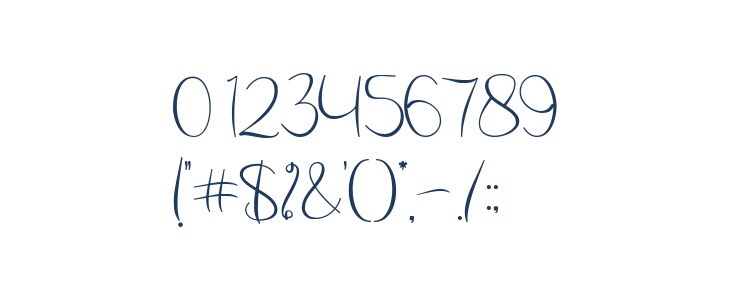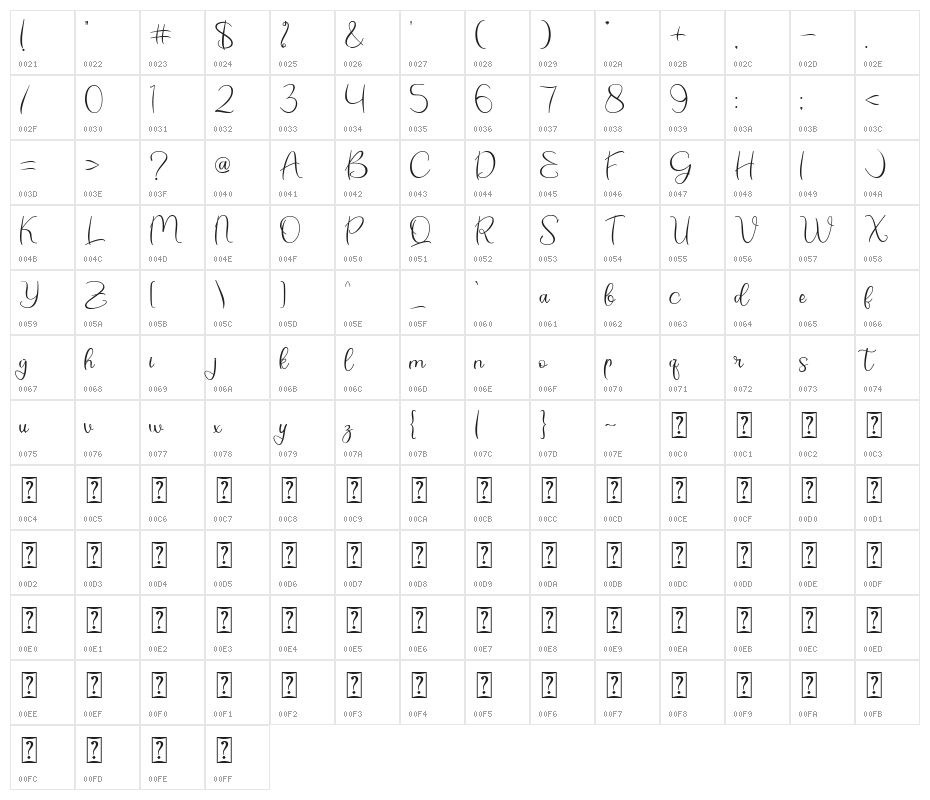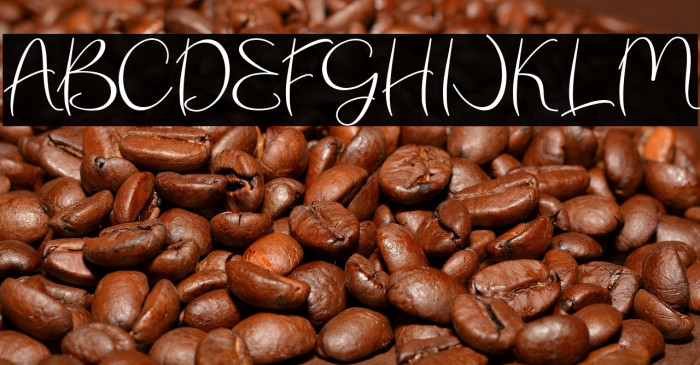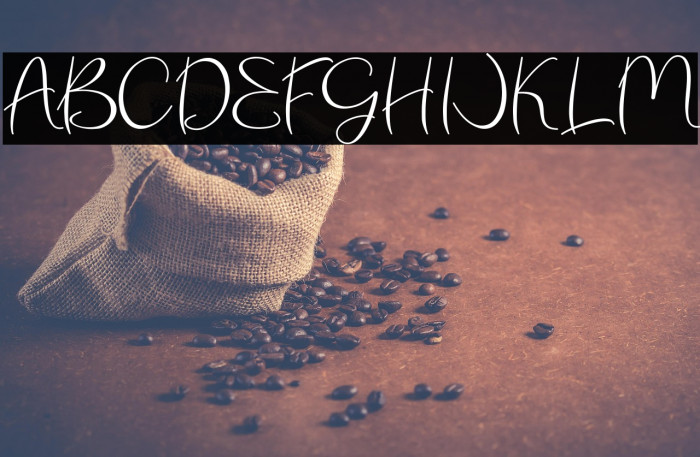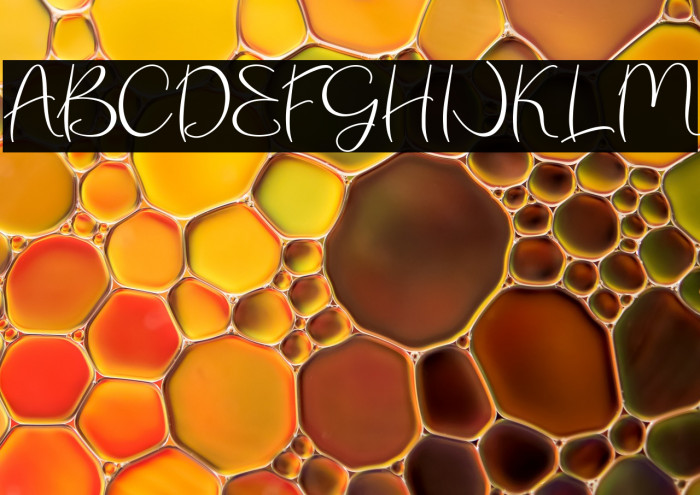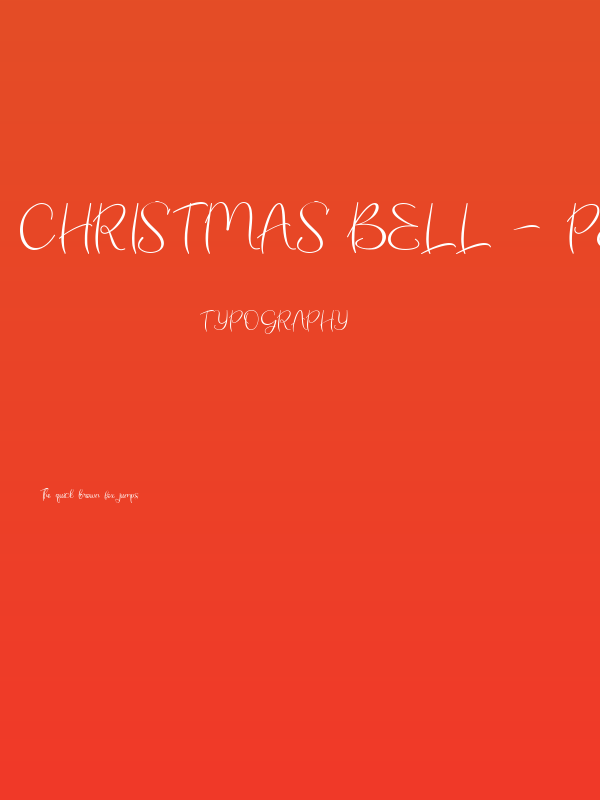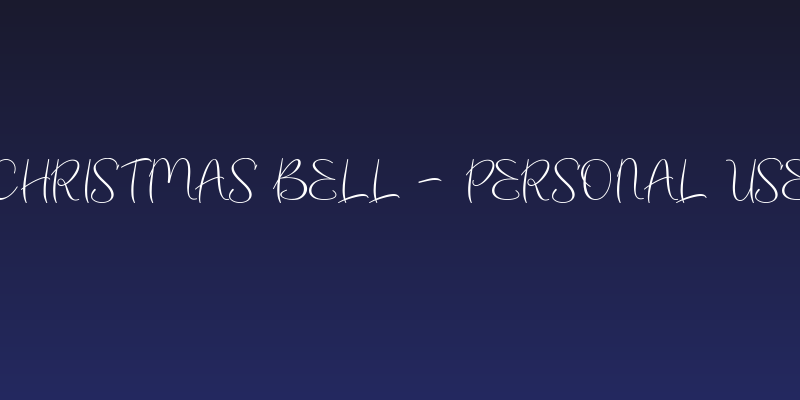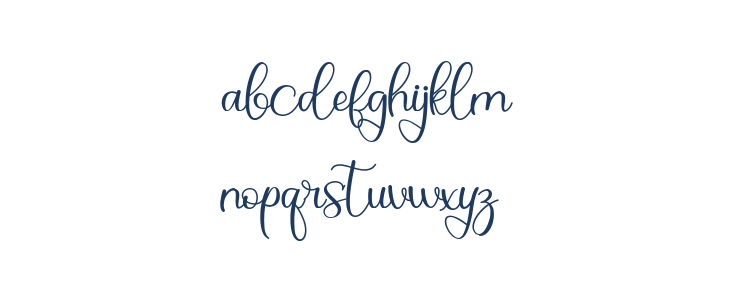
Christmas Bell - Personal Use Font
Christmas Bell - Personal Use Description
This font features an elegant and flowing script style, characterized by its smooth, cursive lines and graceful curves. Each letter is crafted with a sense of fluidity and movement, giving it a handwritten appearance. The uppercase letters are particularly ornate, with extended strokes and loops that add a touch of sophistication. The lowercase letters maintain a consistent style, with rounded forms and a slight slant that enhances the overall aesthetic. Numbers and special characters are designed to complement the alphabet, maintaining the same elegant and flowing style. This font is perfect for adding a personal and artistic touch to any project.
| Use Case | Logos, Invitations, Decorative Text |
| Proposed Projects | Ideal for wedding invitations, greeting cards, branding, and decorative projects. |